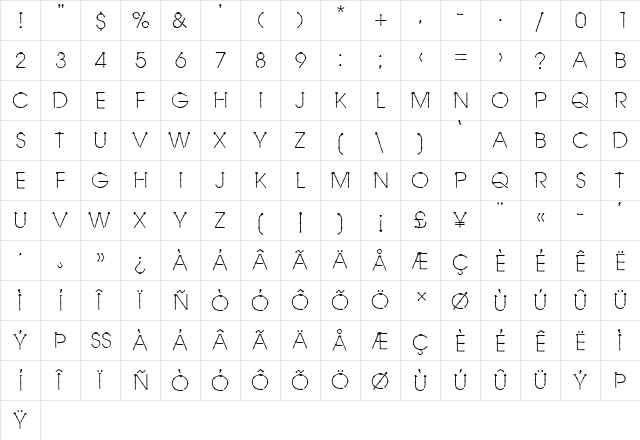
LTSchachtelhalm Medium
Design Context for LTSchachtelhalm Typeface
LTSchachtelhalm is a composed and adaptable typeface that performs quietly and consistently across a wide range of design contexts.